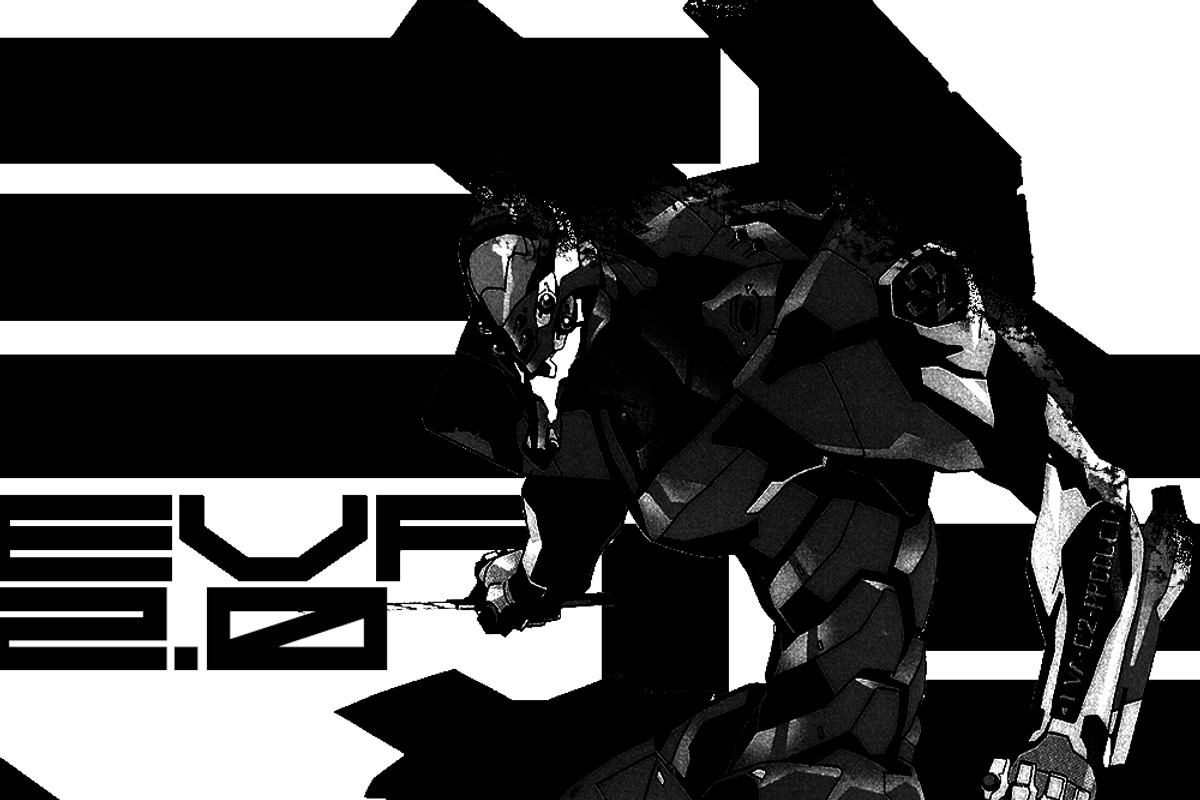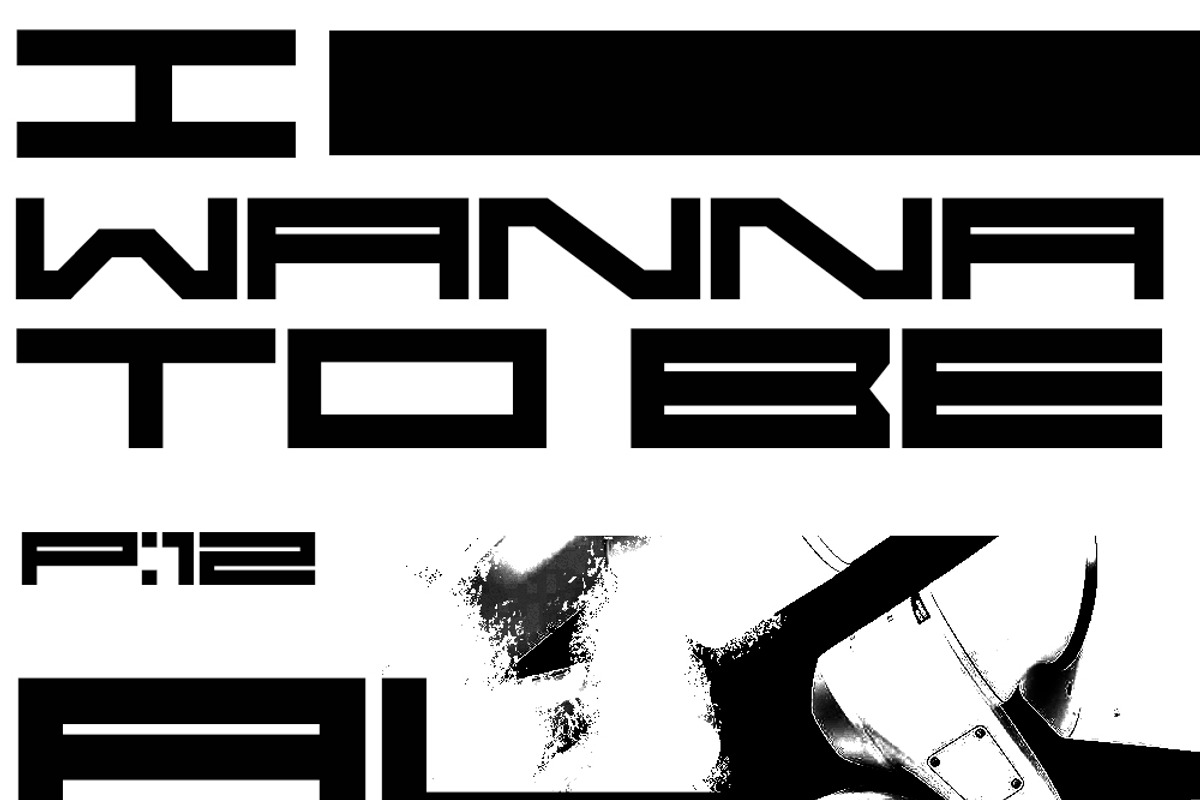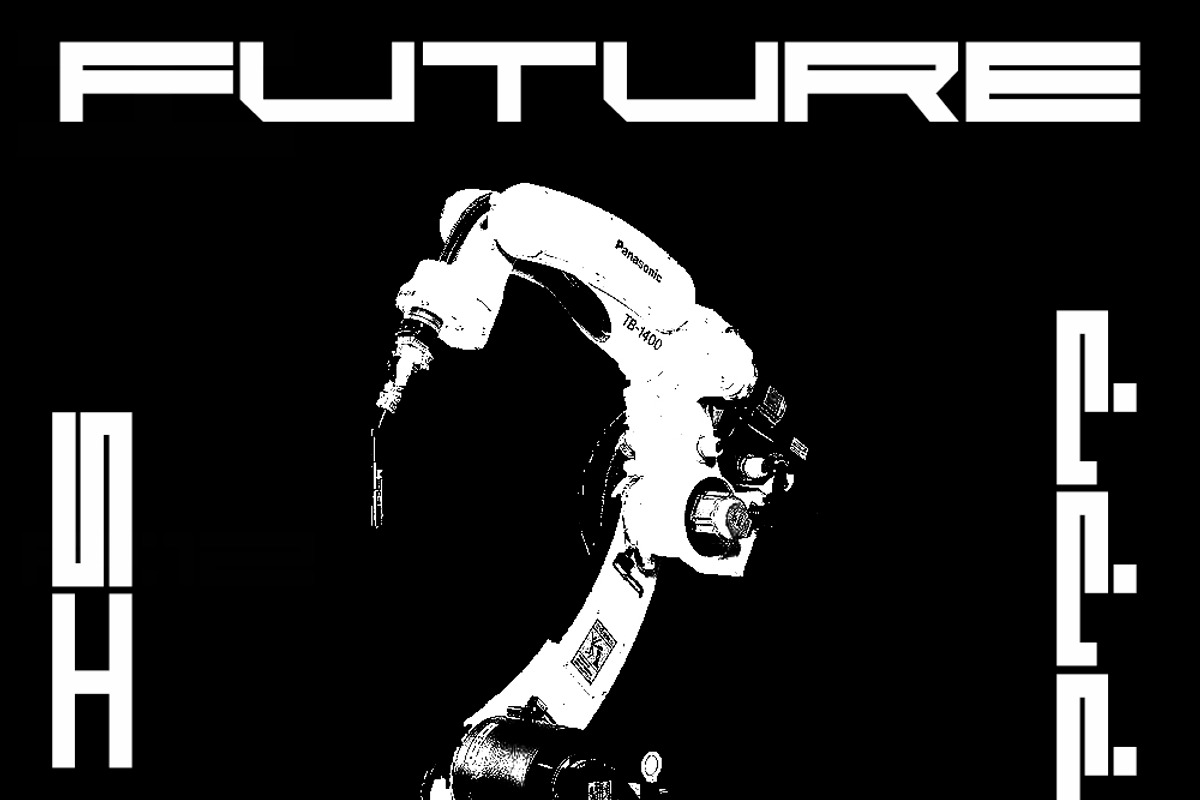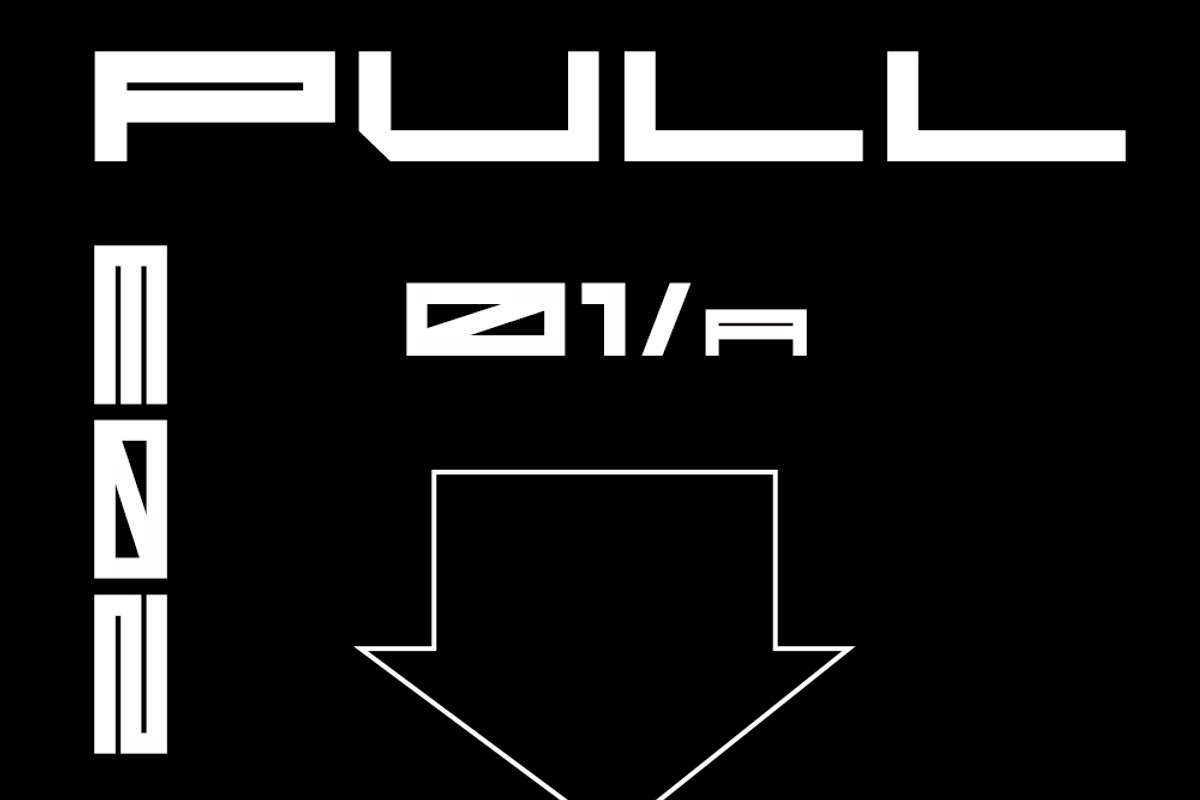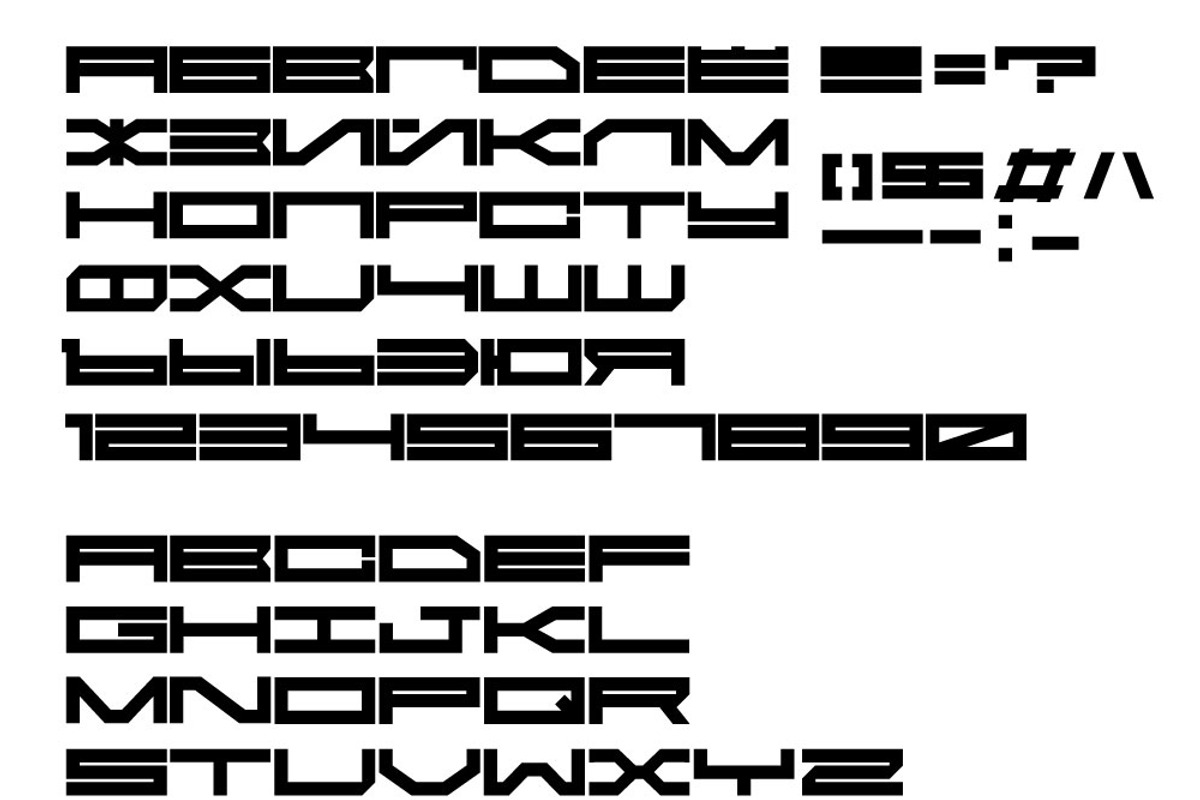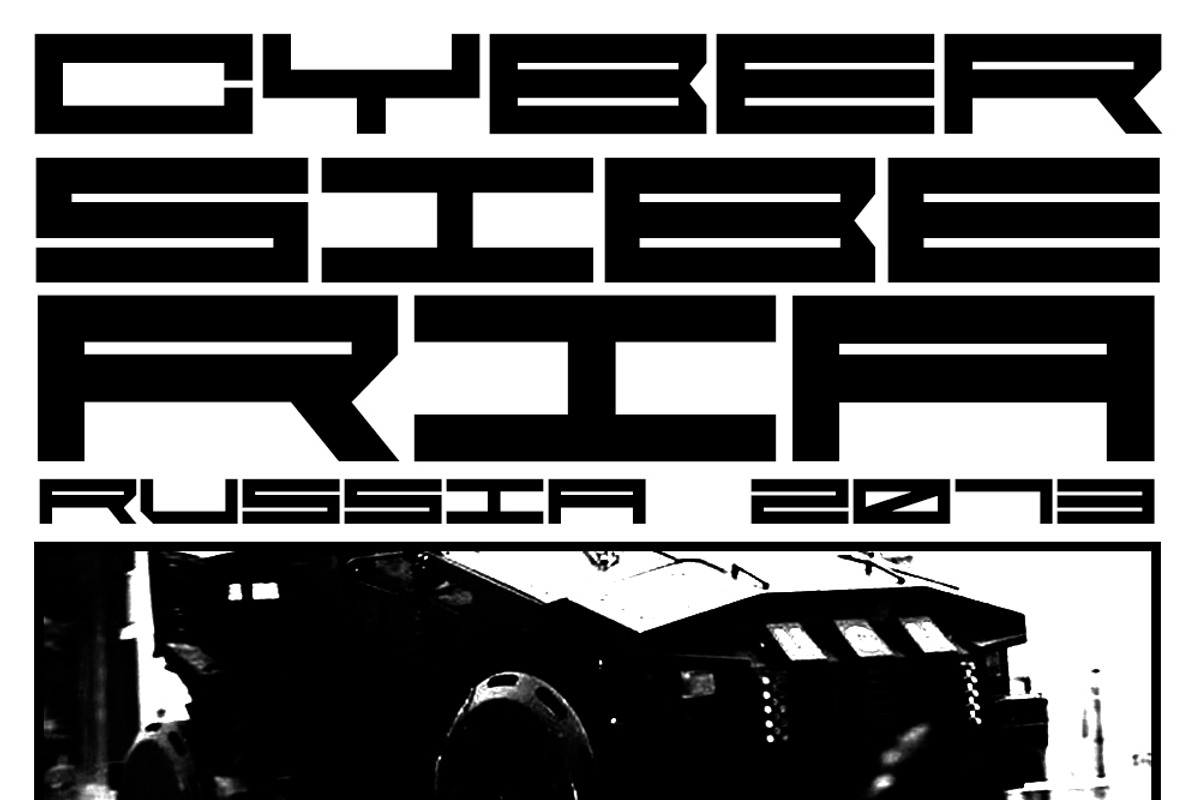
CyberSiberia font
CyberSiberia is futuristic modular font for si-fi design. It support Latin and also Cyrillic alphabet.
Why CyberSiberia font is worth a look
CyberSiberia font by Playground™ fits naturally into Branding, posters, packaging, typography.